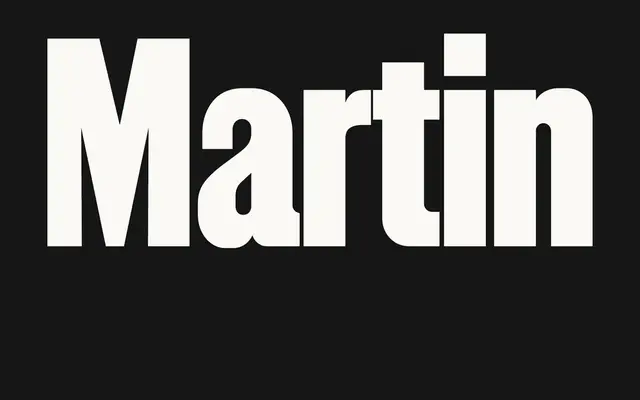
VTC Martin
Vocal Type · 2016
A display gothic family drawn from the letterpress 'I AM A MAN' placards of the 1968 Memphis Sanitation Strike, tracing its letterforms back to Hamilton Gothic No. 6243 from 1906.
The letterforms originate from a 1960 Hamilton Wood Type catalogue discovered on eBay, which identified the typeface used on the protest signs as Gothic No. 6243. Additional weights were drawn from other Hamilton Gothic typefaces, and punctuation was sourced from early 1960s issues of The Baltimore Afro-American Newspaper. First released in June 2016 as Vocal Type's debut font, the family has since grown into two subfamilies: VTC Martin, with variable weights and italics, and VTC Martin Display, which preserves the original's bold uppercase and lighter lowercase contrast.
Letterforms derived directly from letterpress Hamilton Gothic No. 6243 wood type, as used on the 'I AM A MAN' protest placards of 1968; a display gothic with historical wood type lineage.